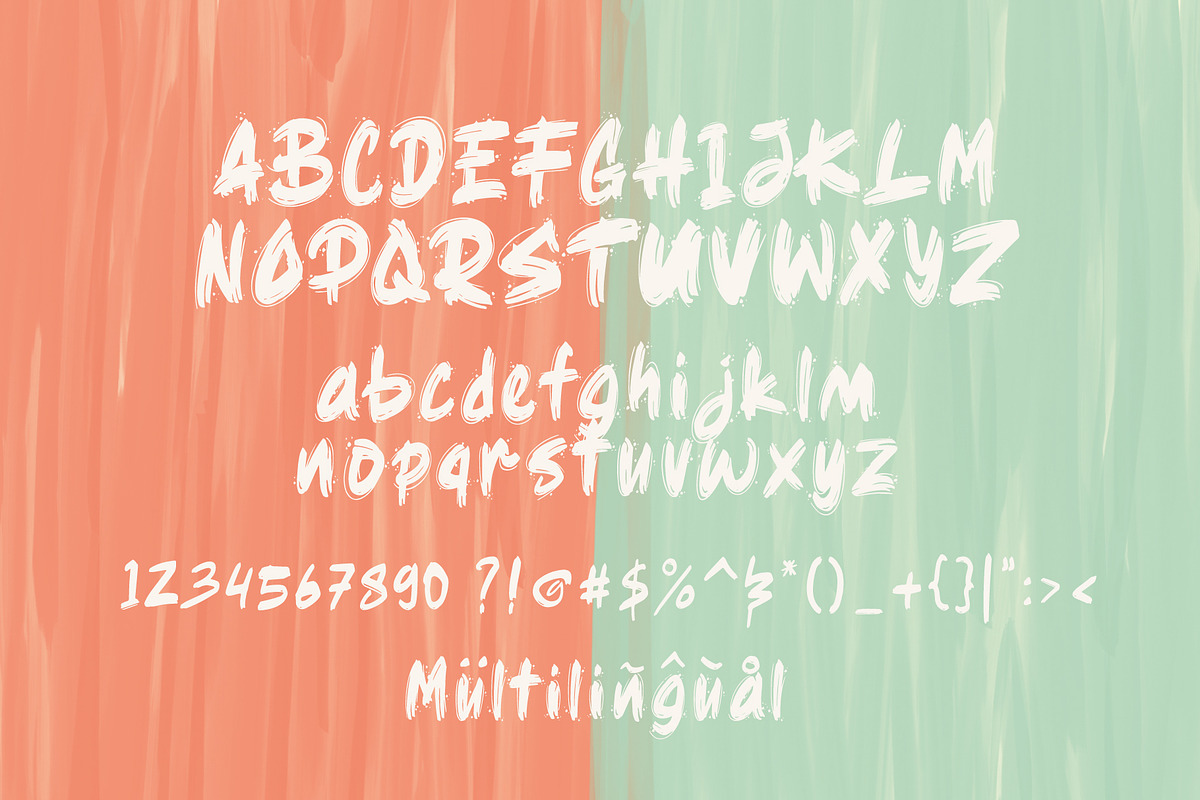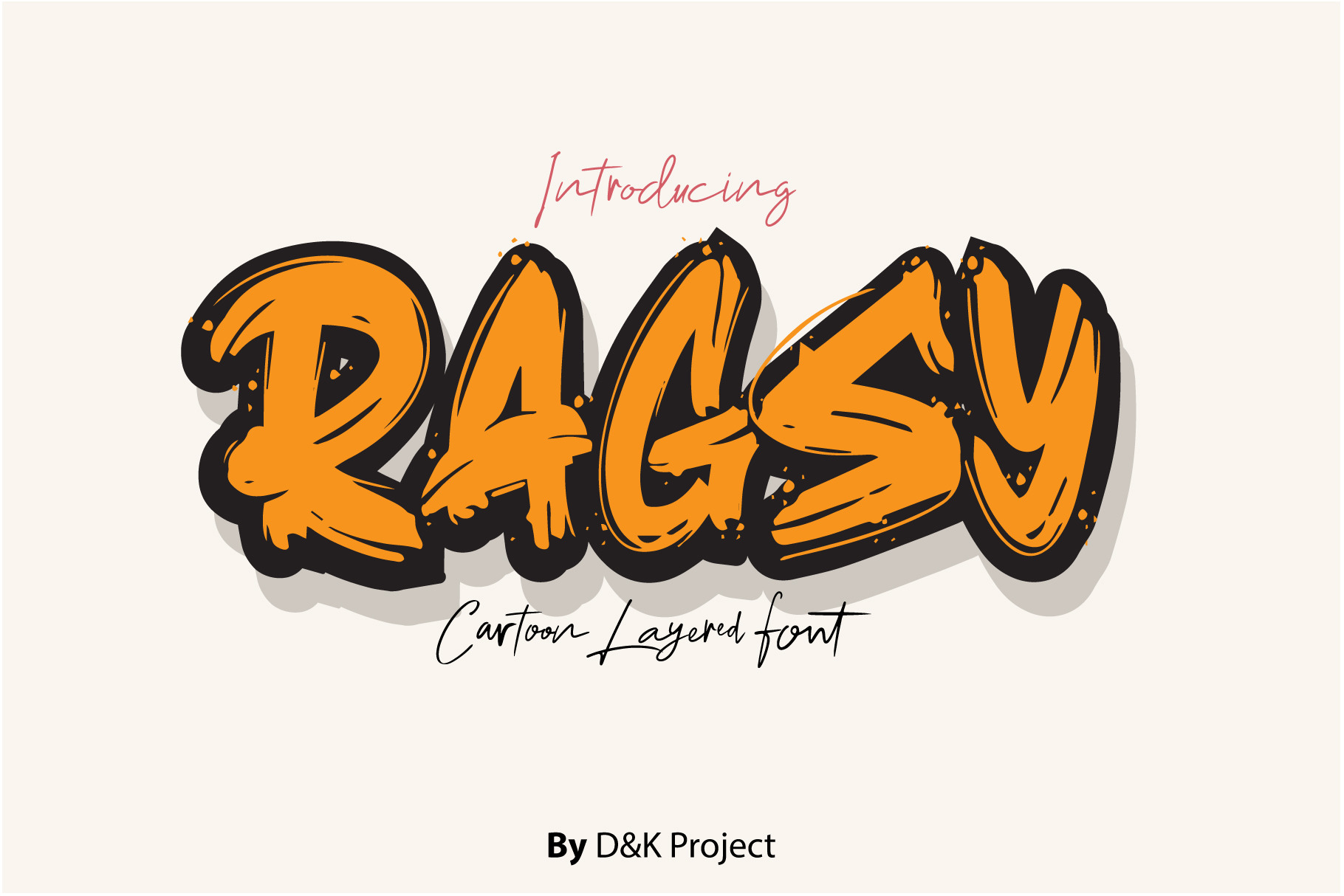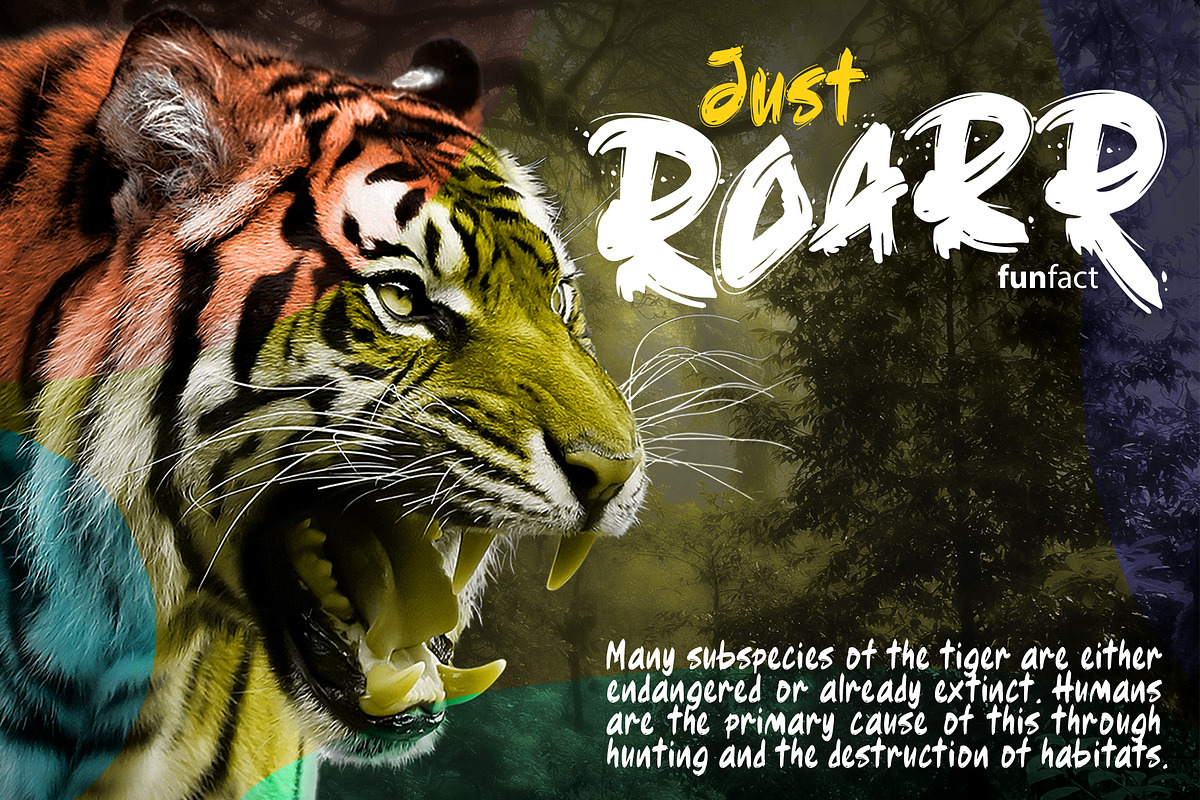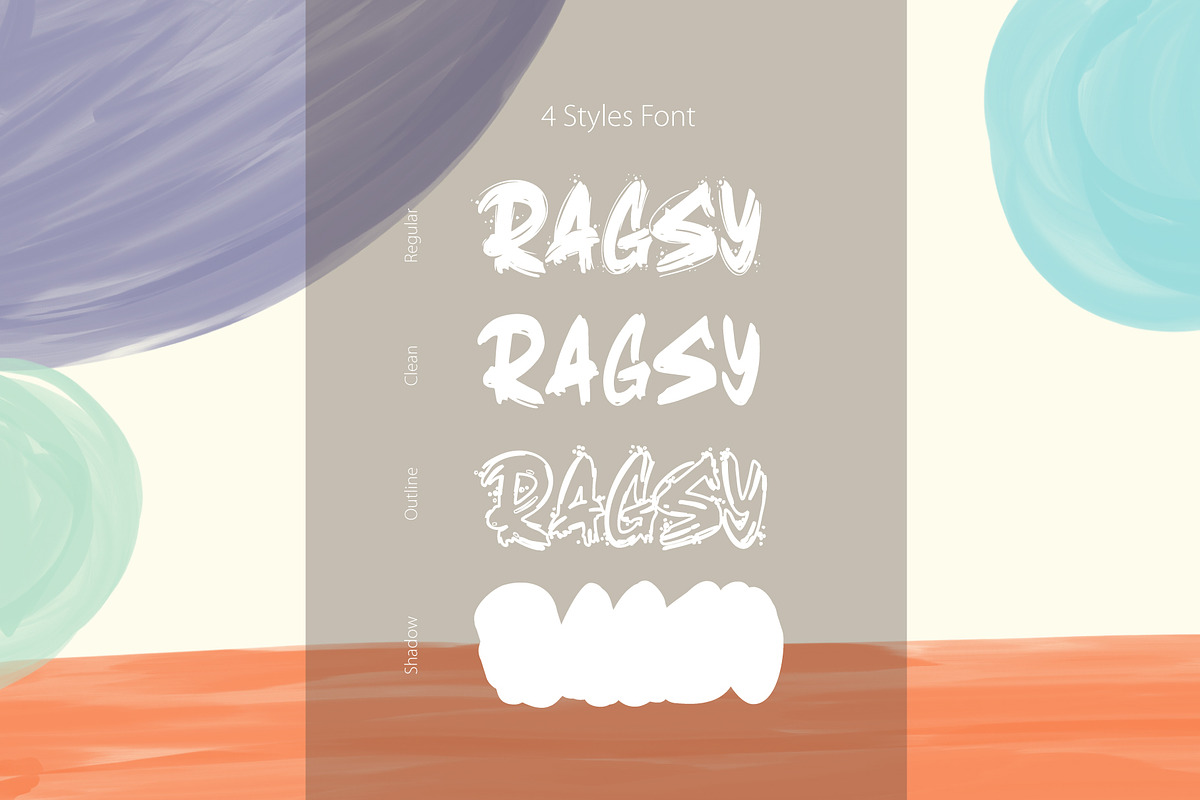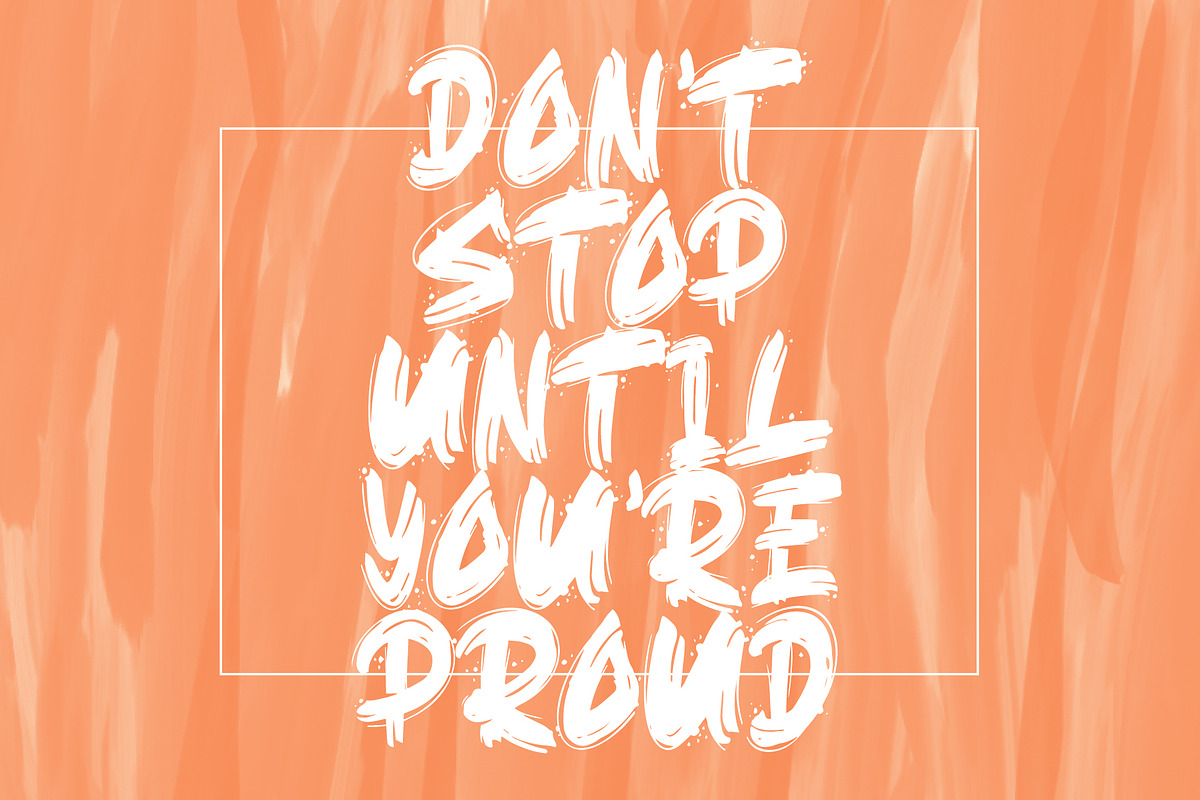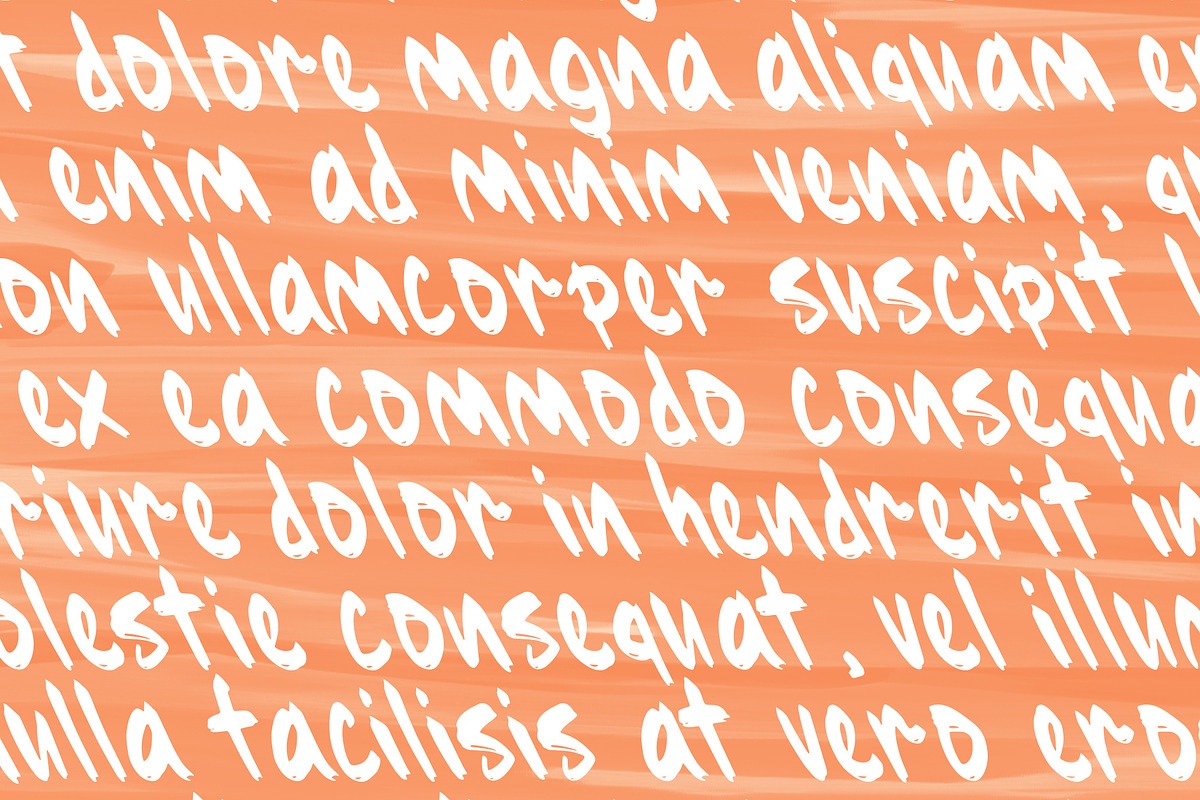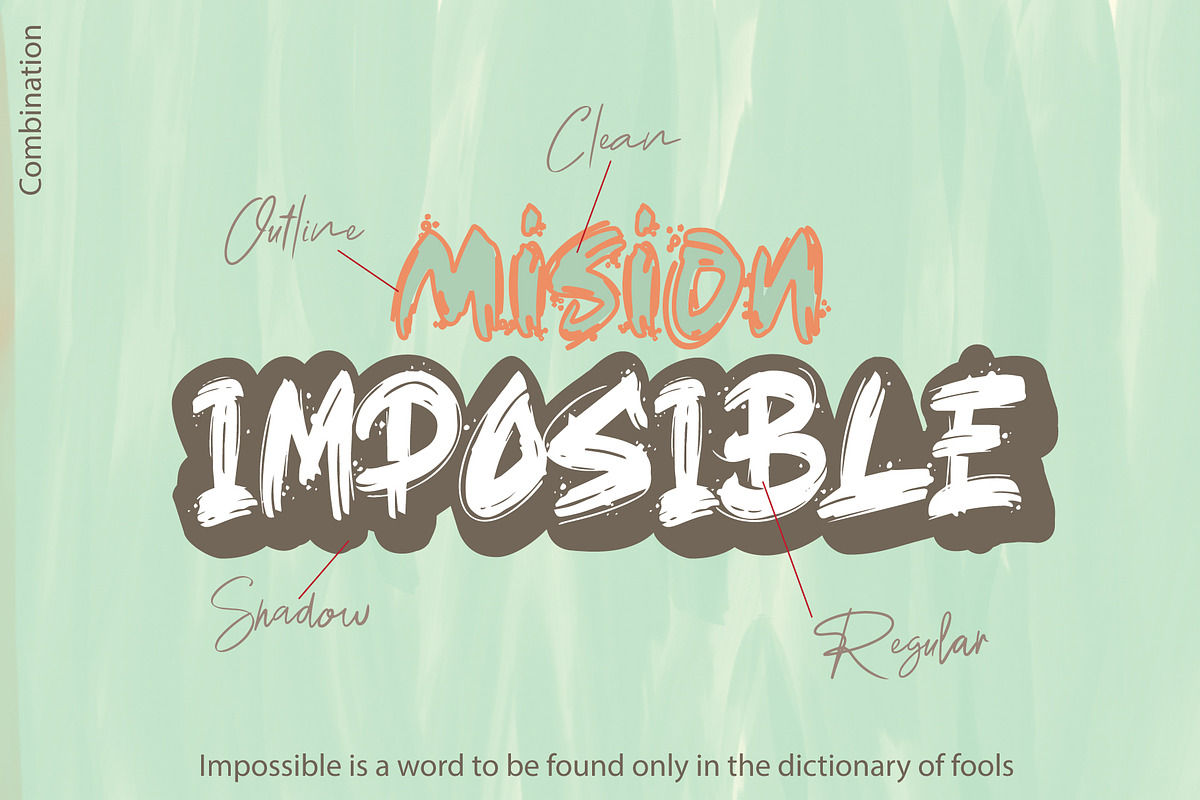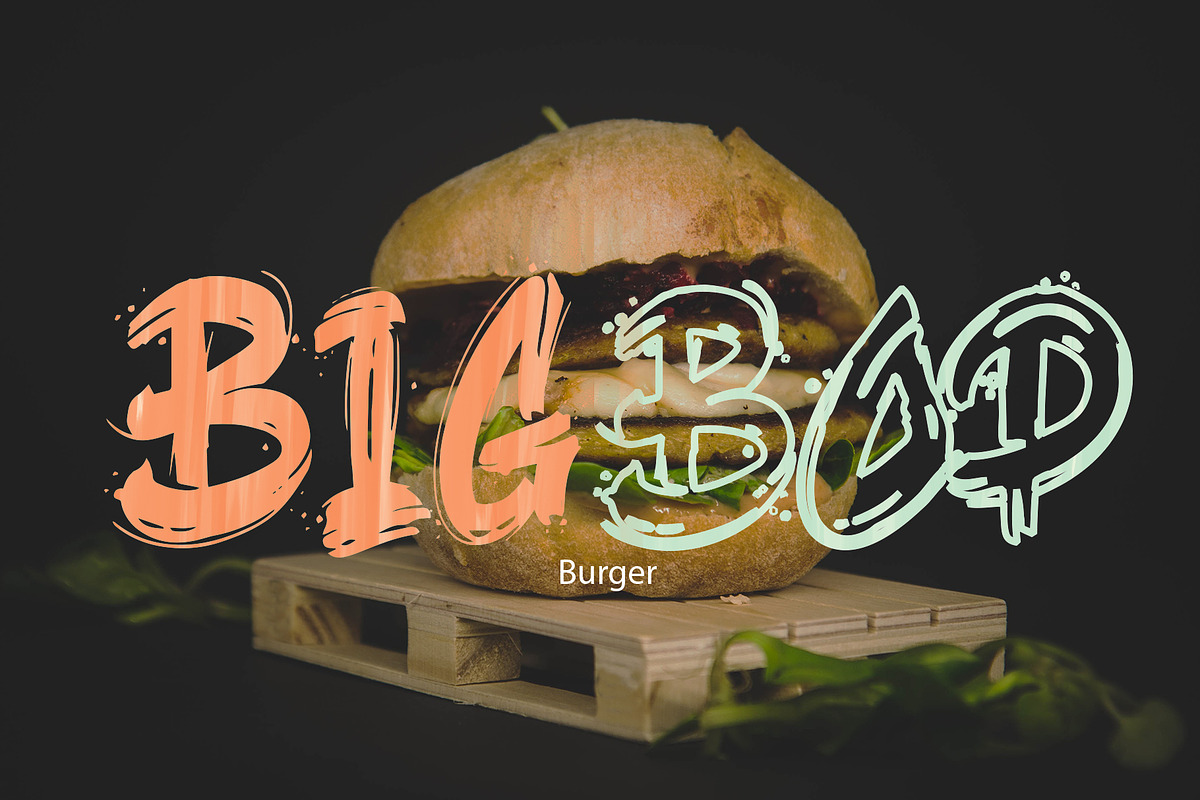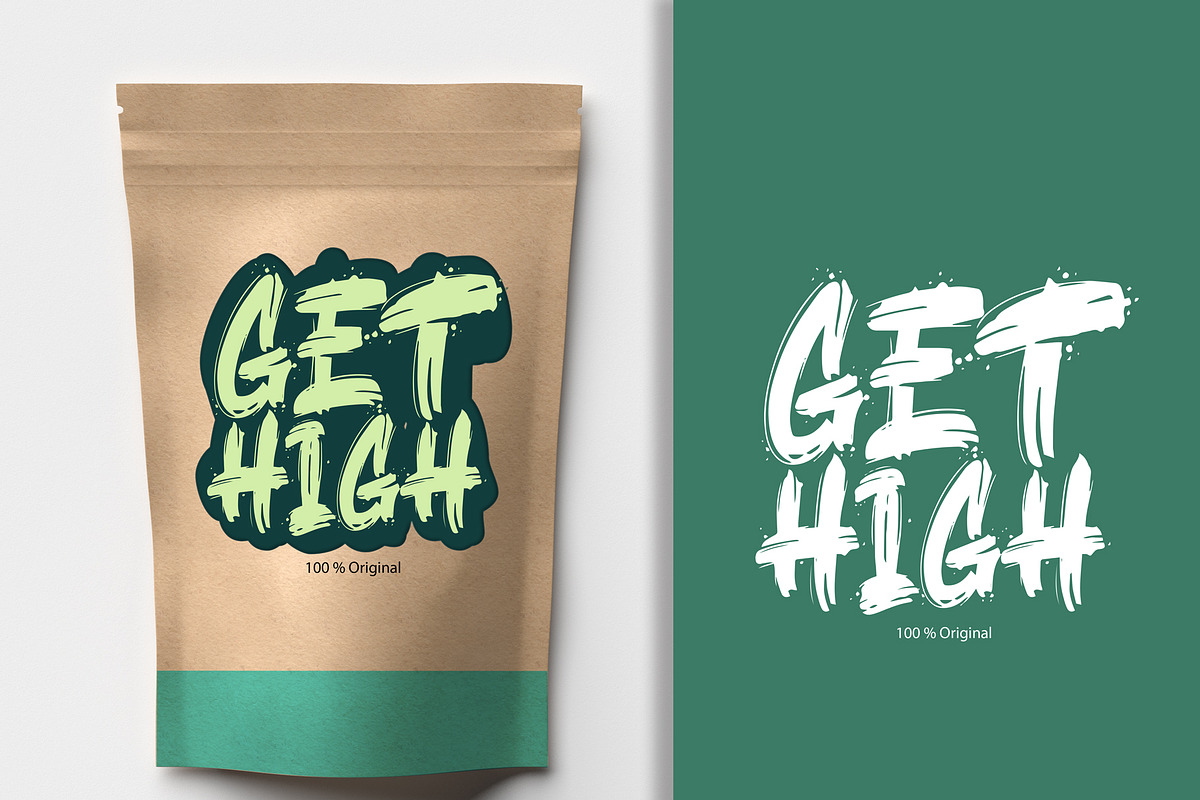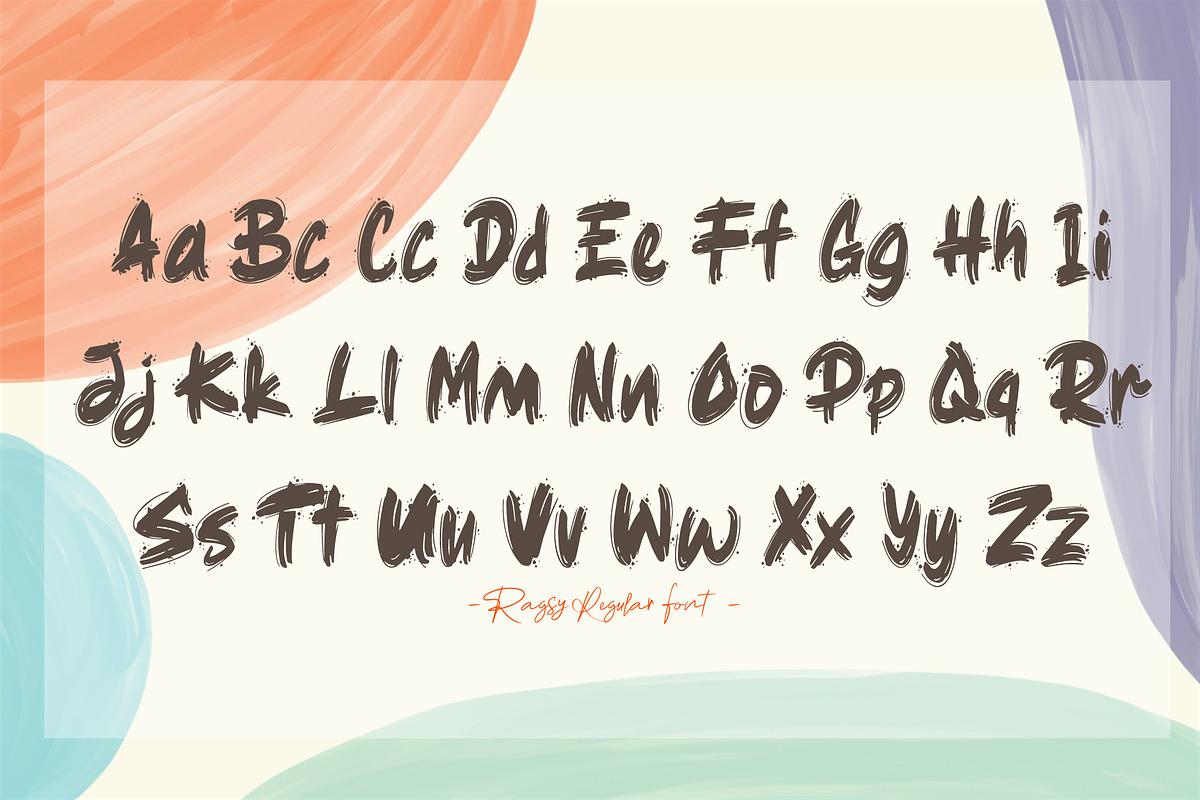
Ragsy | Cartoon layered font
Ragsy is a unique font with Cartoon style also layered font, you can get 4 different font style Regular | clean | Outline | Shadow/Extrusion.
Ragsy is a cartoon style font, making a combination of thick and unique brushpen with a cartoon concept is perfect for any display, whether printed or electronic, with a funny and eye-catching impression.
- 4 font style [ Regular, Clean, Outline and Shadow/Extrusion ]
- UPPERCASE and lowercase | Panctuation and numeral | Multilingual Support